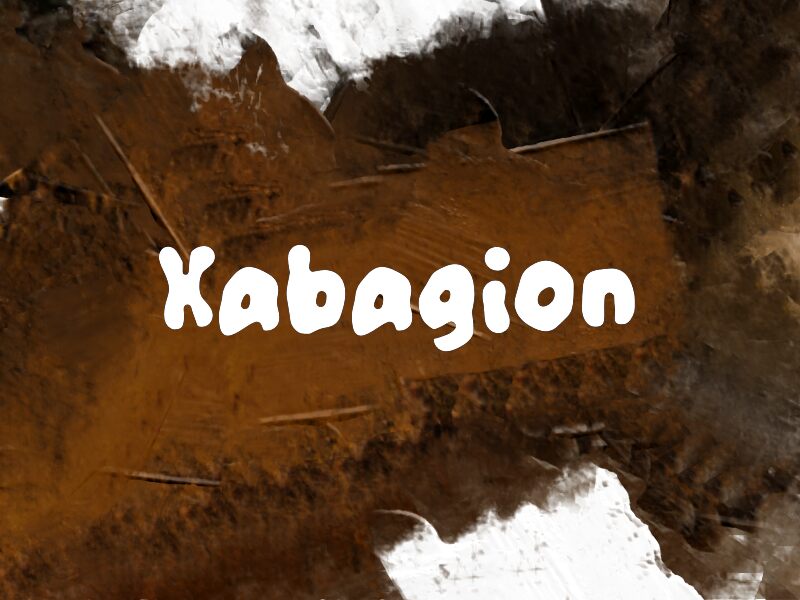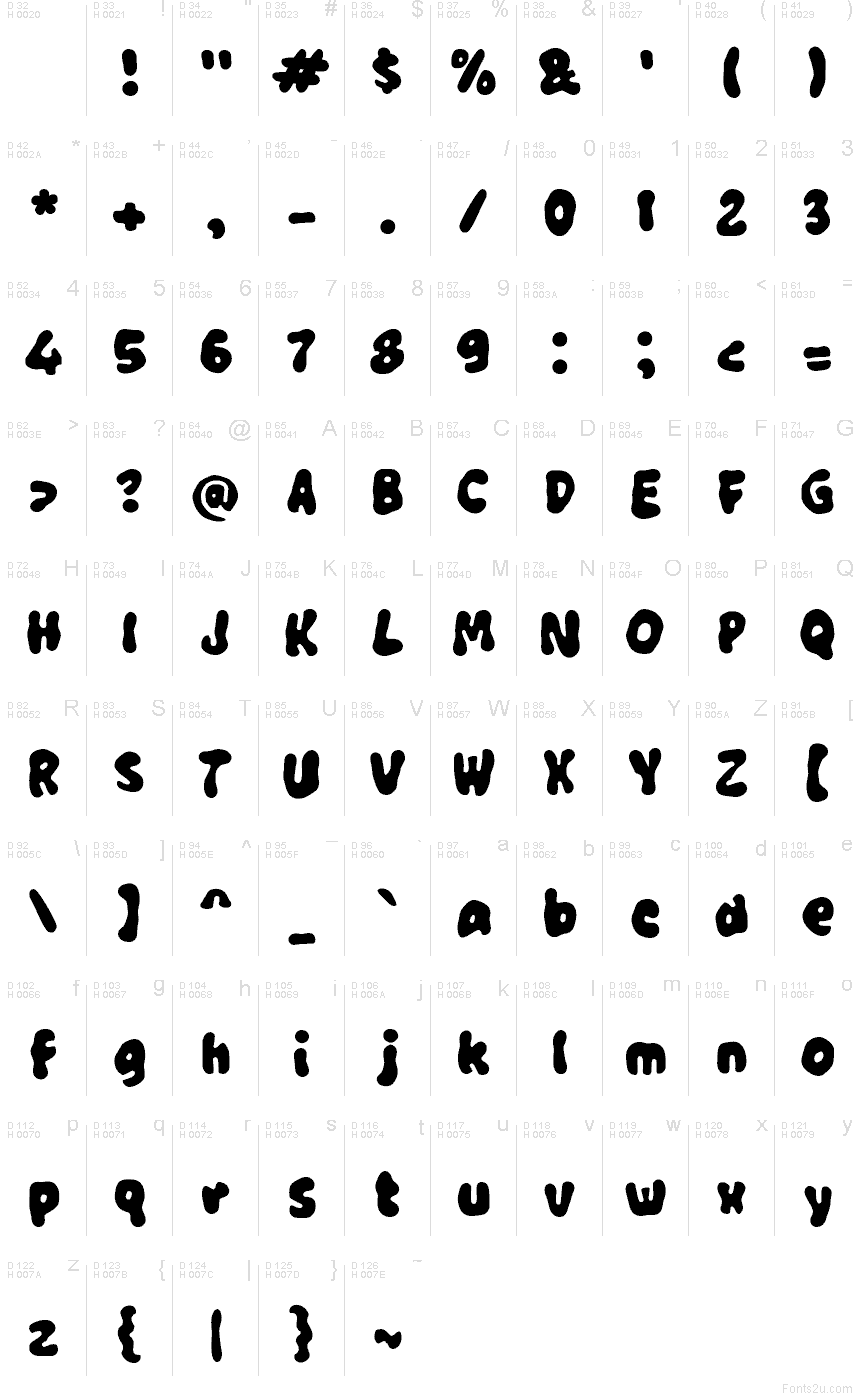
Xabagion
Xabagion font by wepfont.com is a free cartoon display typeface that looks like it’s been poured onto the page in thick, inky blobs. Each letter feels soft and bouncy, with rounded shapes and slightly wobbly edges that give off a handmade, gooey charm. The tight rhythm and bold weight make words pop instantly, as if they’re part of a comic panel or a playful game interface.
Using Xabagion, you can bring loud, cheeky character to kids’ posters, slime or monster-themed party invites, toy packaging, YouTube thumbnails, game titles, and playful logo lockups. This free font shines at large sizes where its blobby silhouettes can really show off. Pair it with a clean geometric sans for body text to keep things readable while Xabagion handles the fun, attention-grabbing headlines.